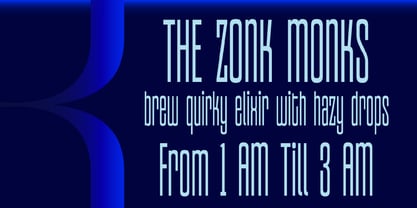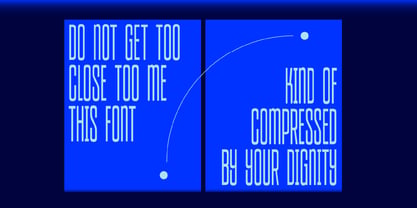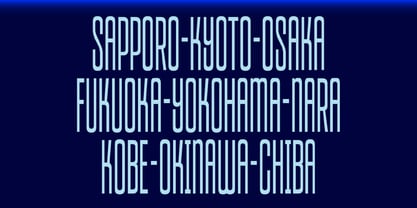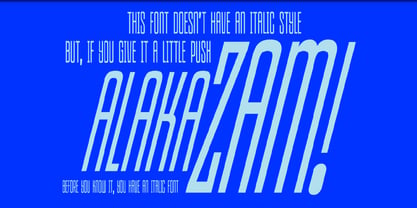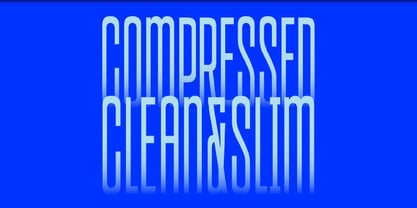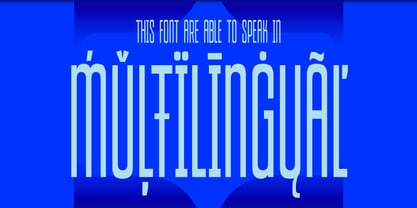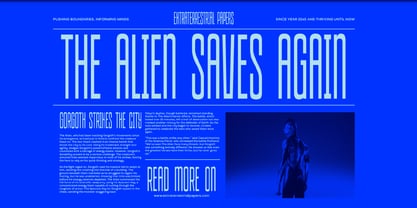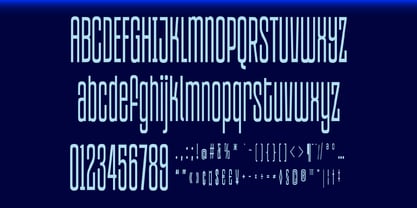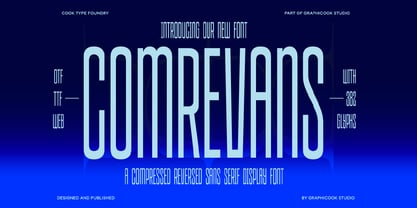
Cook Comrevans
by Graphicook Studio
The Cook Comrevans Font Family was designed by Gumilar Febriansyah and published by Graphicook Studio. Cook Comrevans contains 1 styles. More about this family
Comrevans is a sans-serif font with a compressed form and a unique, experimental character. It’s perfect for futuristic, technology, and cyberpunk-themed designs. It is perfect for headlines, logotypes, magazines, packaging, quotes, movies, games, cover albums, book covers, and flyers, it's a perfect solution for creating eye-catching designs that stand out in any context.